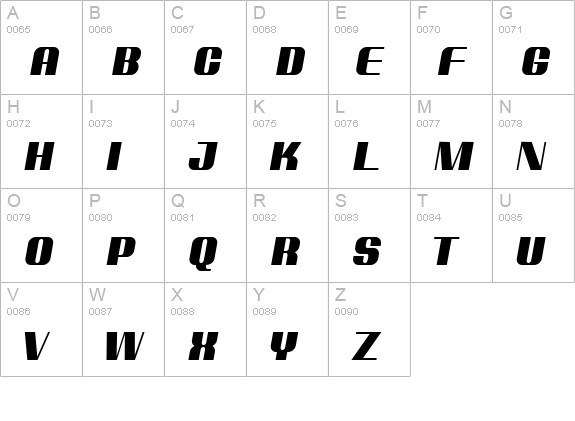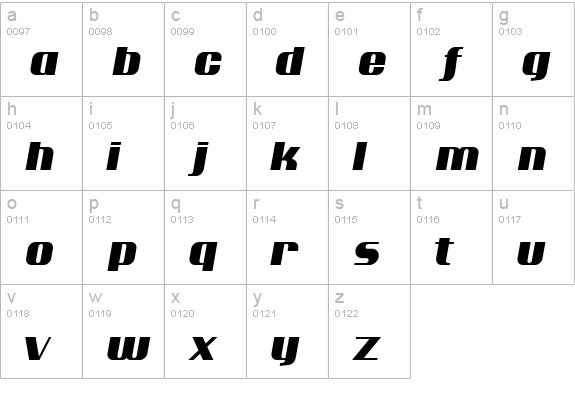
Ptarmigan Italic Font Details
Ptarmigan Italic is a distinctive, italic variant in the Ptarmigan typeface family \xE2\x80\x94 well suited to design and typography projects.
Discover the elegant and sophisticated beauty of Ptarmigan Italic font, a versatile typeface perfect for adding a touch of flair to your projects. With its slanted appearance and graceful curves, Ptarmigan Italic exudes a sense of modern charm and style. This exquisite font is ideal for a wide range of design applications, from invitations and posters to branding and packaging. Its unique design captures attention and adds a sense of refinement to any project. What's even better is that Ptarmigan Italic font is available for free download at FontsMarket.com. So go ahead and elevate your designs with this stunning typeface today!